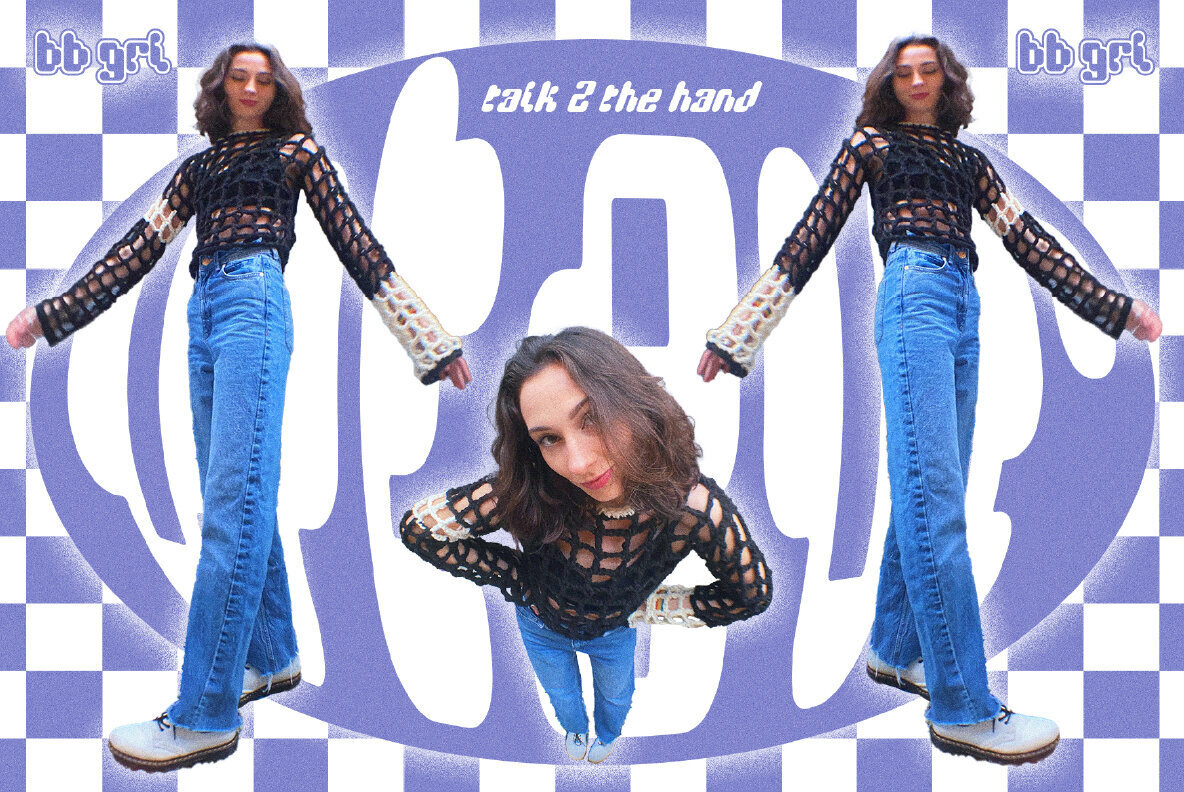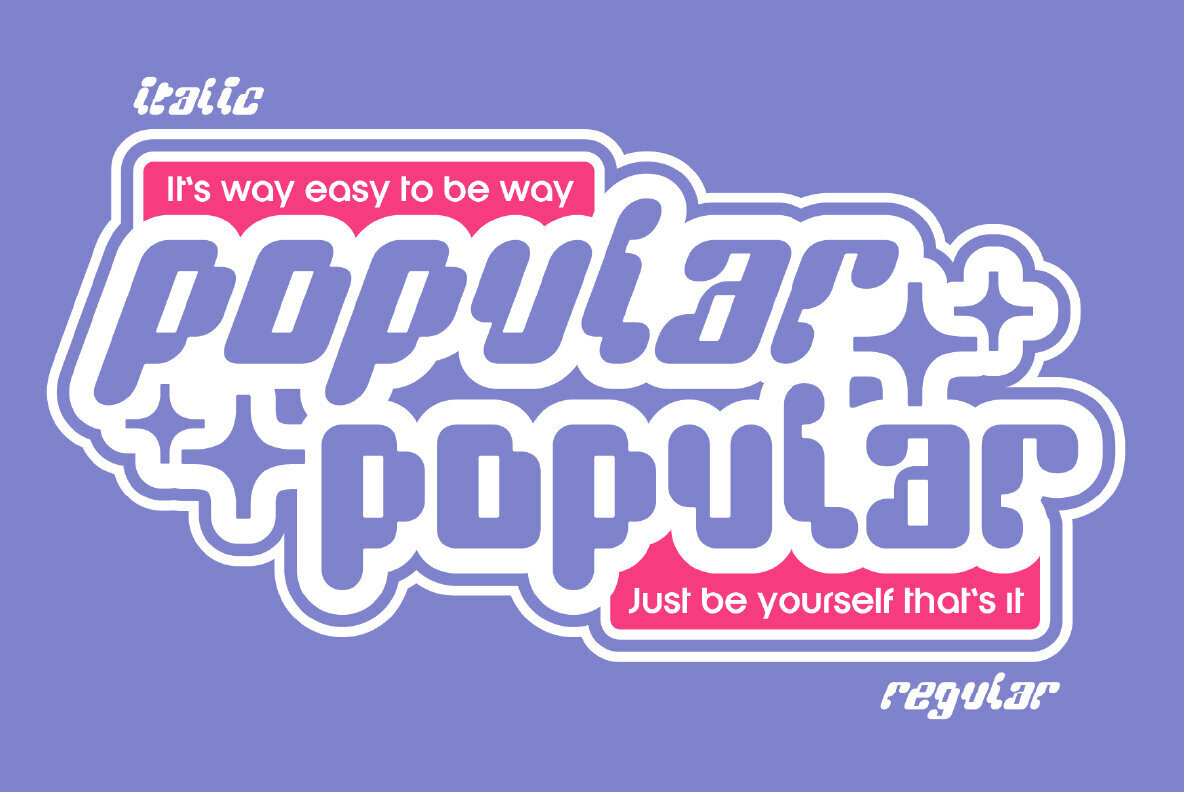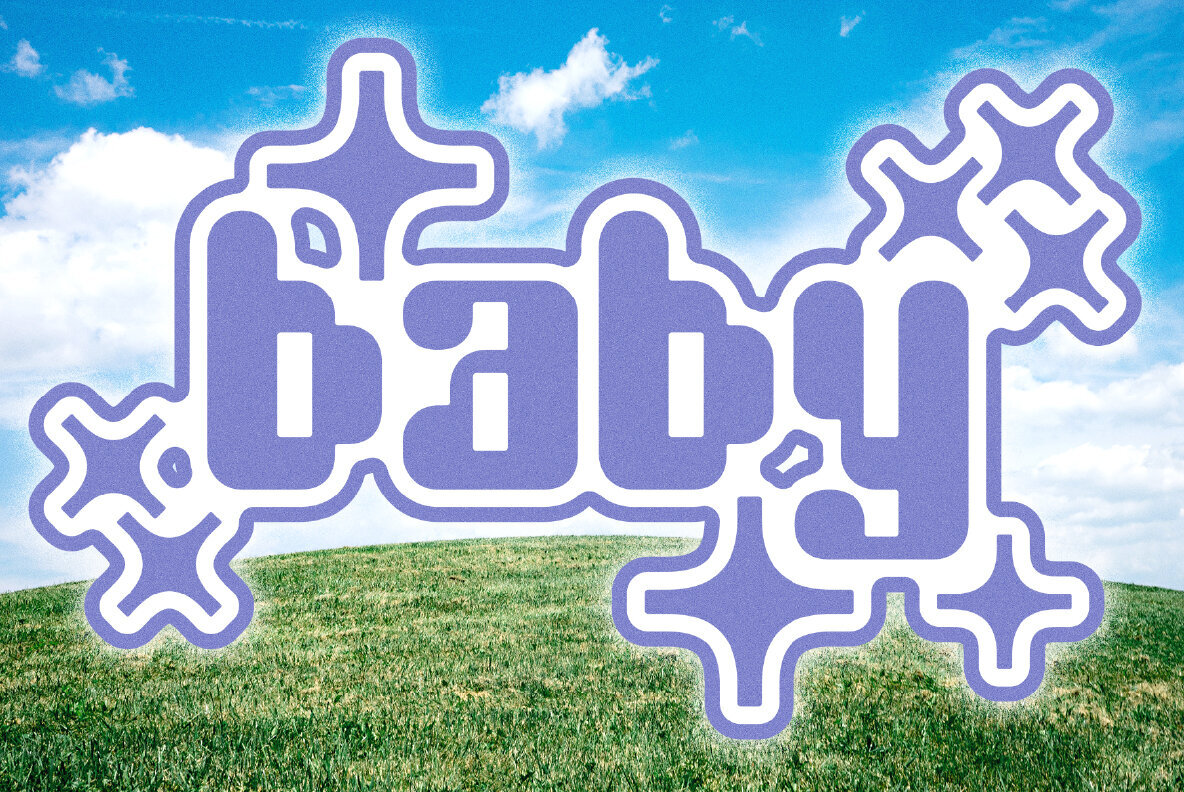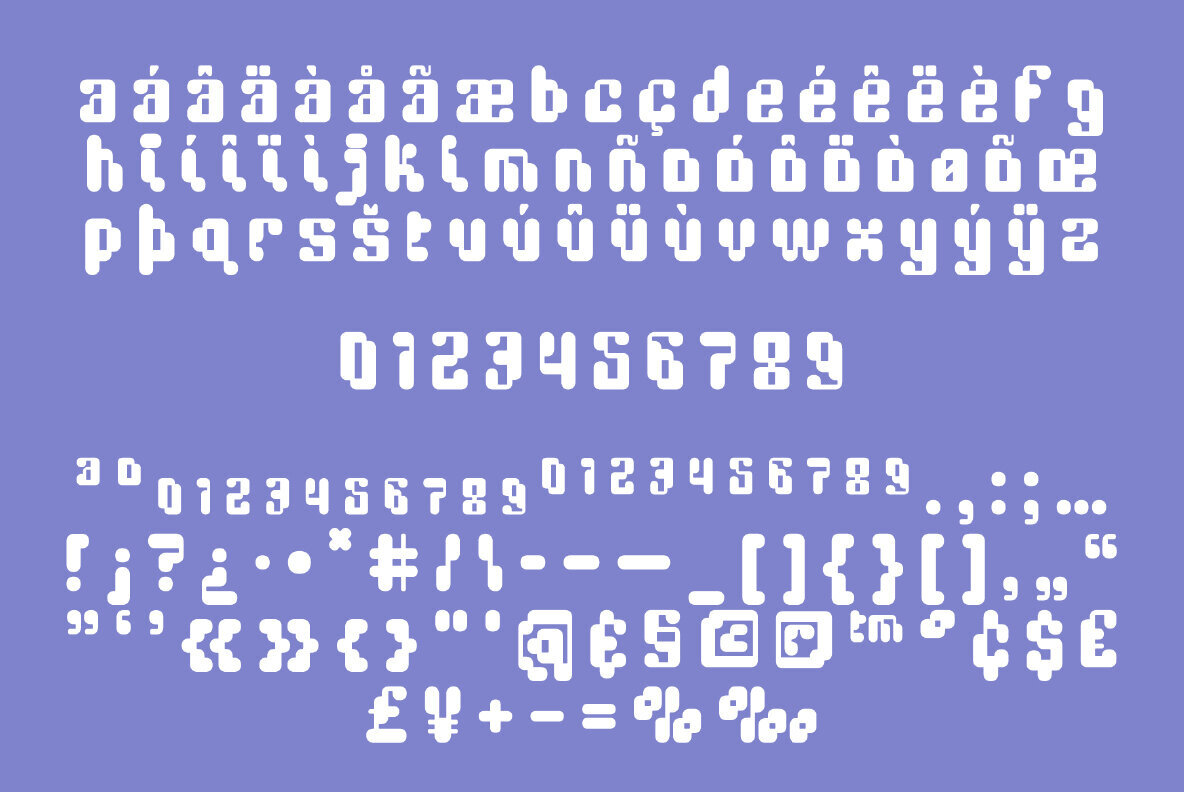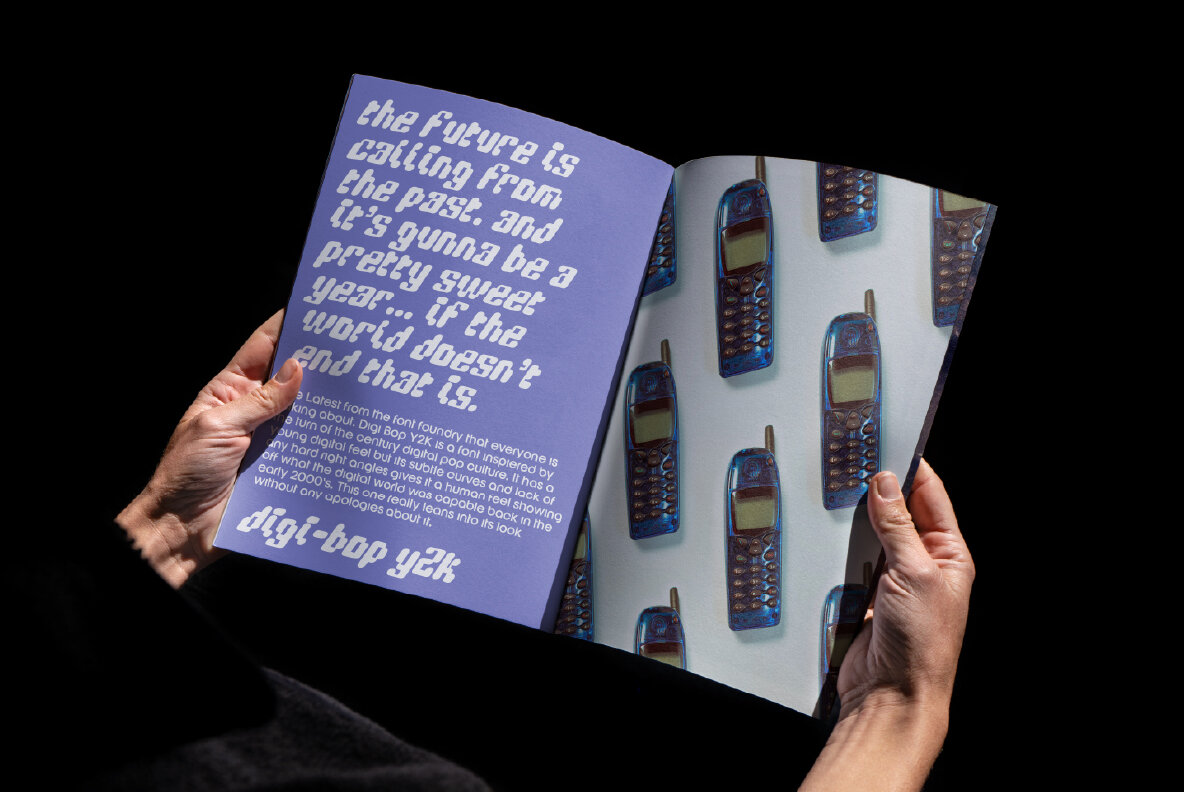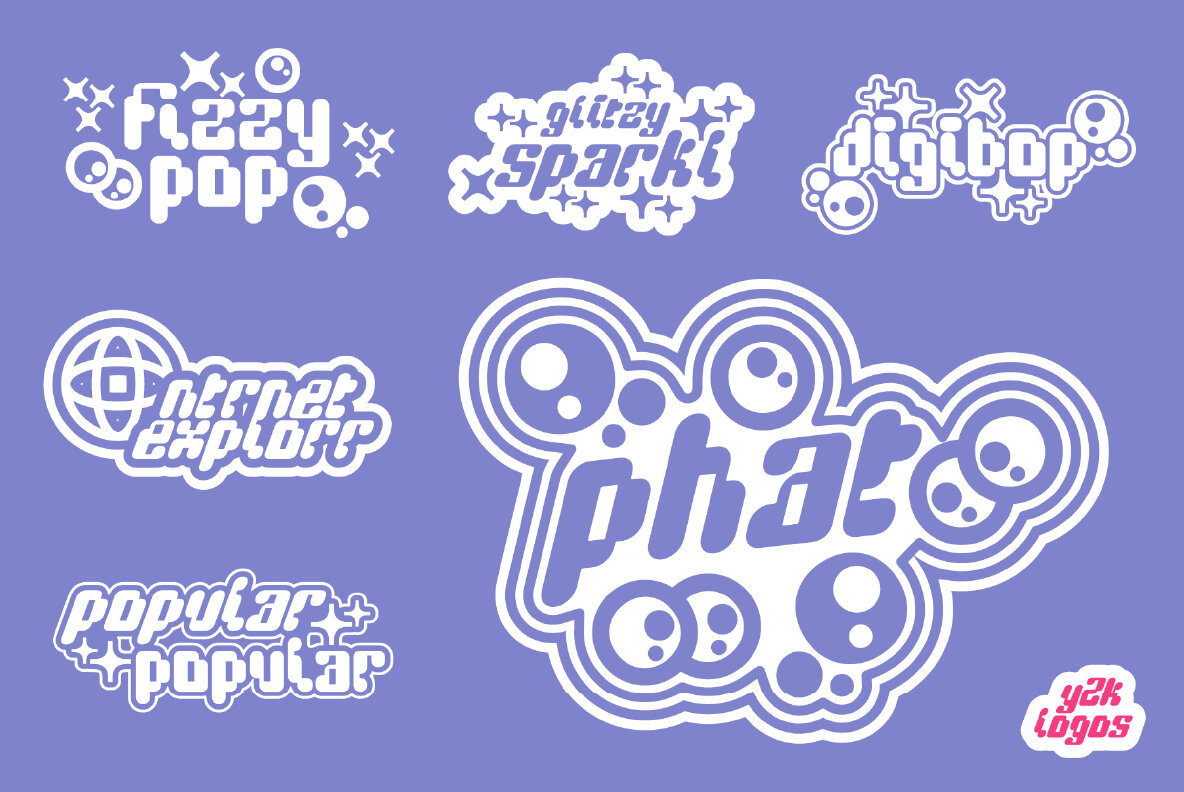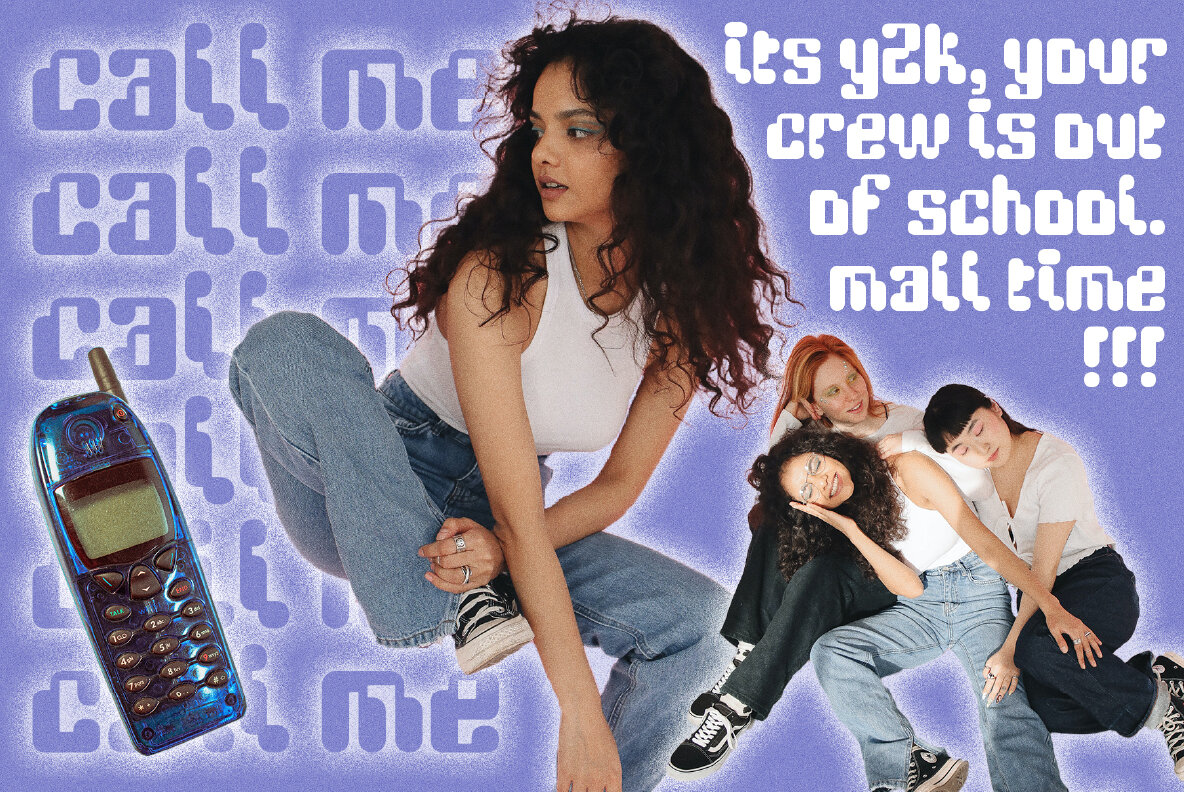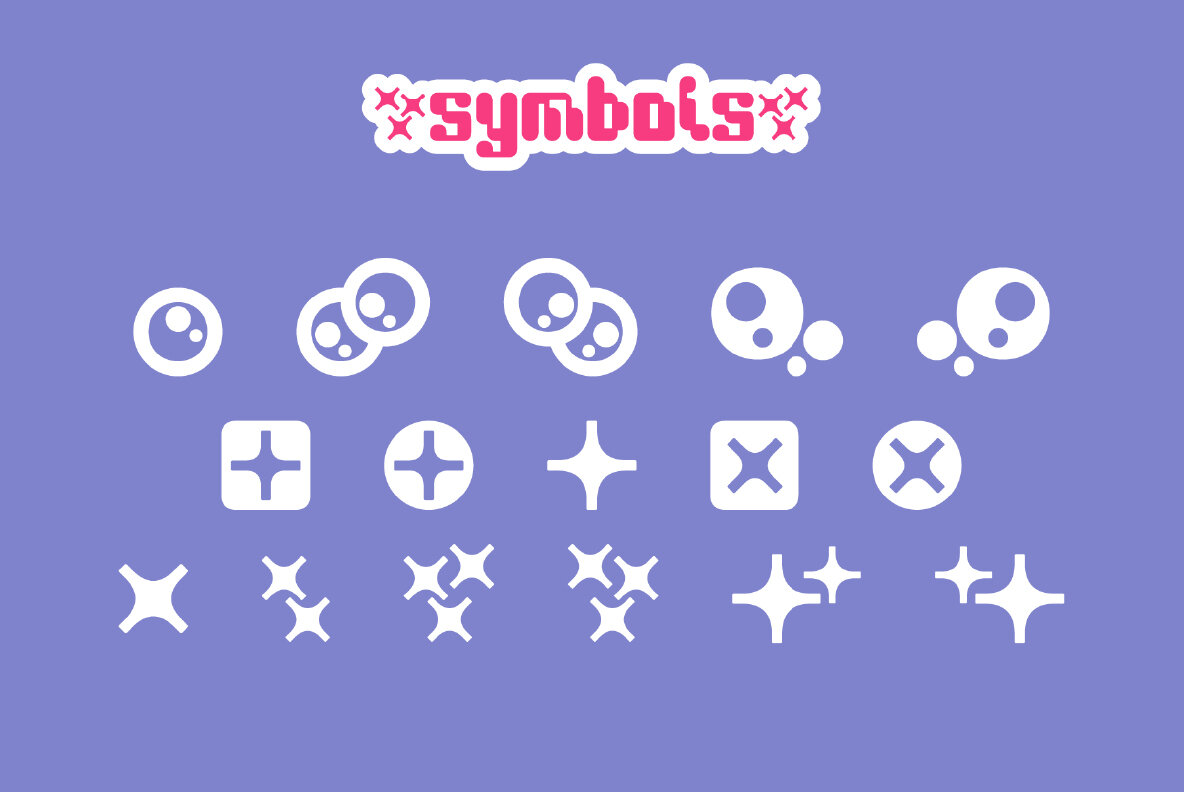
DigiBop Y2K Font
DigiBop Regular
DigiBop Italic
DigiBop Y2K is a real head turner. It is a modern take on a retro (is Y2K retro yet) digital era font. this font is perfect for branding, Instagram, print, posters, logos, magazines, headlines and more. It comes in regular and italic. This font hits on 90's and early 2000's nostalgia in a big way adding a playful bold fun take on the Y2K trend.